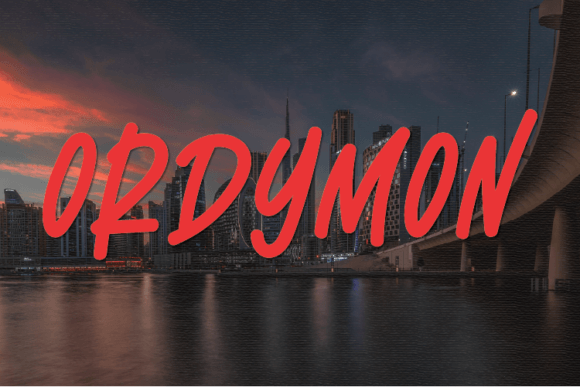
Welcome to the world of Ordymon, a captivating script font family crafted by the talented Hanna Bie. Ordymon is not just a font; it's an artistic expression that adds a touch of whimsy and charm to your creative projects. Whether you're a seasoned designer or just starting, Ordymon will elevate your designs with its playful and versatile nature.
Immerse yourself in the beauty of Ordymon's flowing lines and elegant curves, reminiscent of handwritten letters. This enchanting font family is perfect for adding a personal touch to your digital designs, presentations, greeting cards, or even handmade crafts. Its versatility knows no bounds, making it suitable for a diverse range of projects.
Step into the realm of creativity with Ordymon, where your imagination takes center stage. Express your unique style, capture heartfelt moments, or craft stunning visuals that leave a lasting impression. Unleash your inner artist and let Ordymon become your trusted companion in creating designs that captivate and inspire.
Don't settle for ordinary fonts that lack character. Choose Ordymon, the font that breathes life into your words and captivates your audience. Experience the joy of creating with a font that truly speaks to your heart.
So, embark on this creative journey with Ordymon, where your designs will dance with delight and leave an unforgettable mark on the world. Let your creativity soar, embrace the magic of Ordymon, and create masterpieces that resonate with your audience.